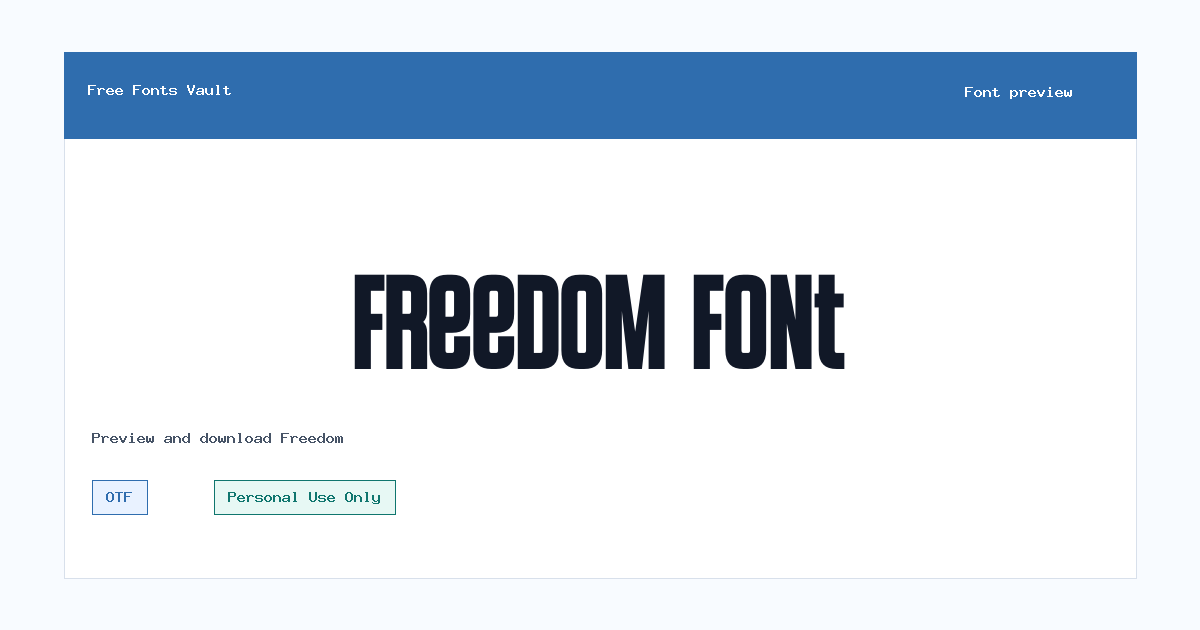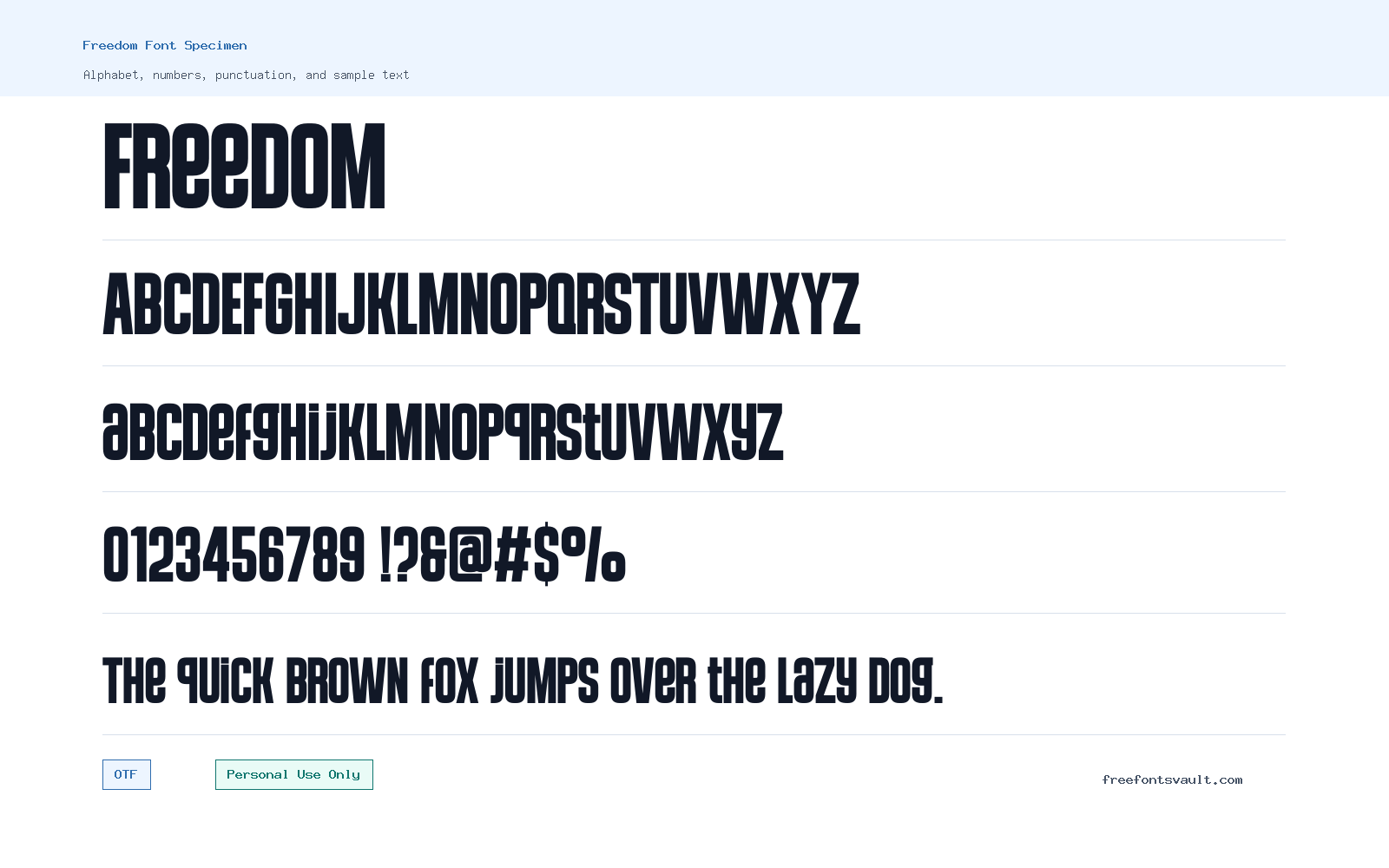
Freedom
- Designer Funtype Co.
- Foundry Funtype Co.
Freedom font.
Freedom is a regular-weight sans serif font from Funtype Co. It is a practical choice to try when you need clean lettering for personal designs, mockups, and short display text.
About Freedom Font
Freedom keeps things simple: one regular OTF style, normal upright lettering, and a 400 weight that should feel familiar in many design tools. Because it is a sans serif, it is best approached as a clean, direct typeface rather than an ornate display font. That makes it useful for visitors who want a font that can be tested quickly in headlines, labels, cover text, simple posters, or social graphics. The name gives it a bold first impression, but the safest way to judge it is through the live preview: type your own words, check the spacing, and see how it handles both short phrases and longer lines.
Use Freedom where clarity matters more than decoration. It can work well for personal project titles, quote cards, school or hobby graphics, prototype branding, digital mockups, and clean layout experiments. For body copy, test a full sentence or paragraph before committing, because a single regular style may not give you enough contrast for complex page layouts. If you need hierarchy, pair it with a serif font for a more editorial feel, or use it with another sans serif that has bold and light weights. Keep plenty of spacing around the text, especially in all-caps settings, and preview numbers, punctuation, and accented characters if your design depends on them.
- Sans serif design suited to clean personal-use layouts and quick previews
- Personal posters, quote graphics, mockups, and social media images
- Short headings, labels, simple title text, and design experiments
The designer and foundry are listed as Funtype Co.
Who designed Freedom?
Freedom is credited to Funtype Co., which is also listed as the foundry.
What style of font is Freedom?
Freedom is identified as a sans serif font in a regular, normal upright style with a 400 weight.